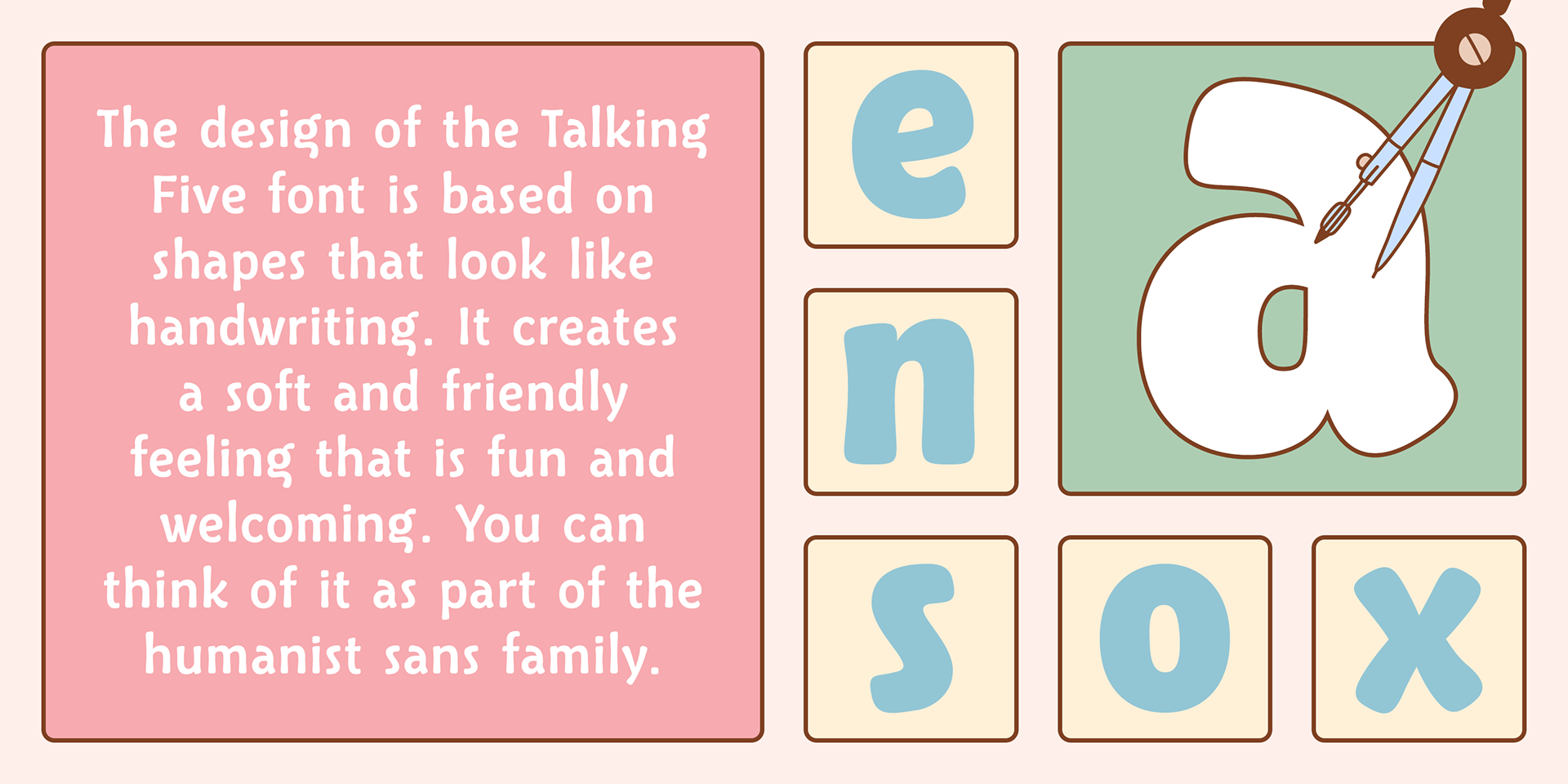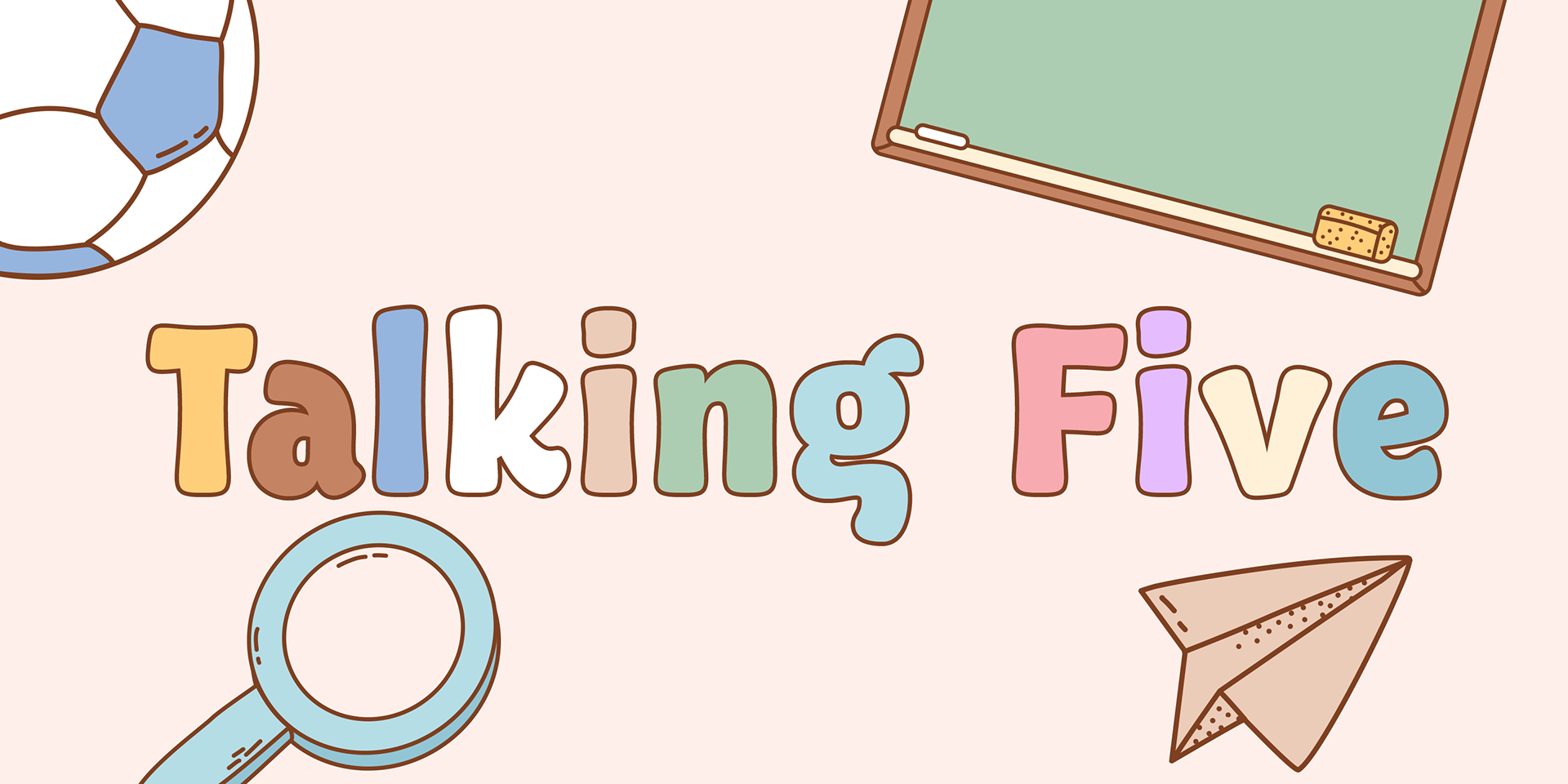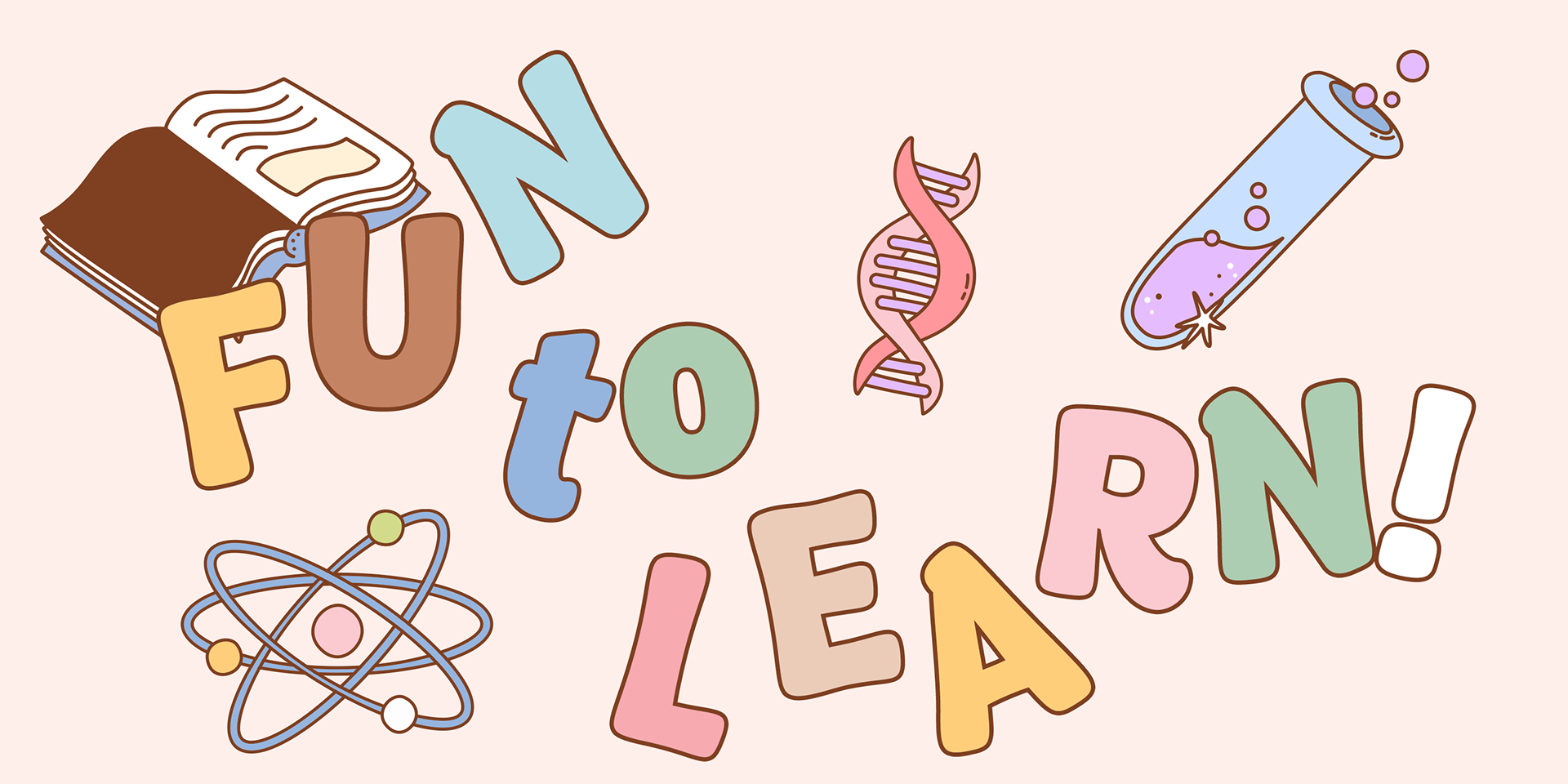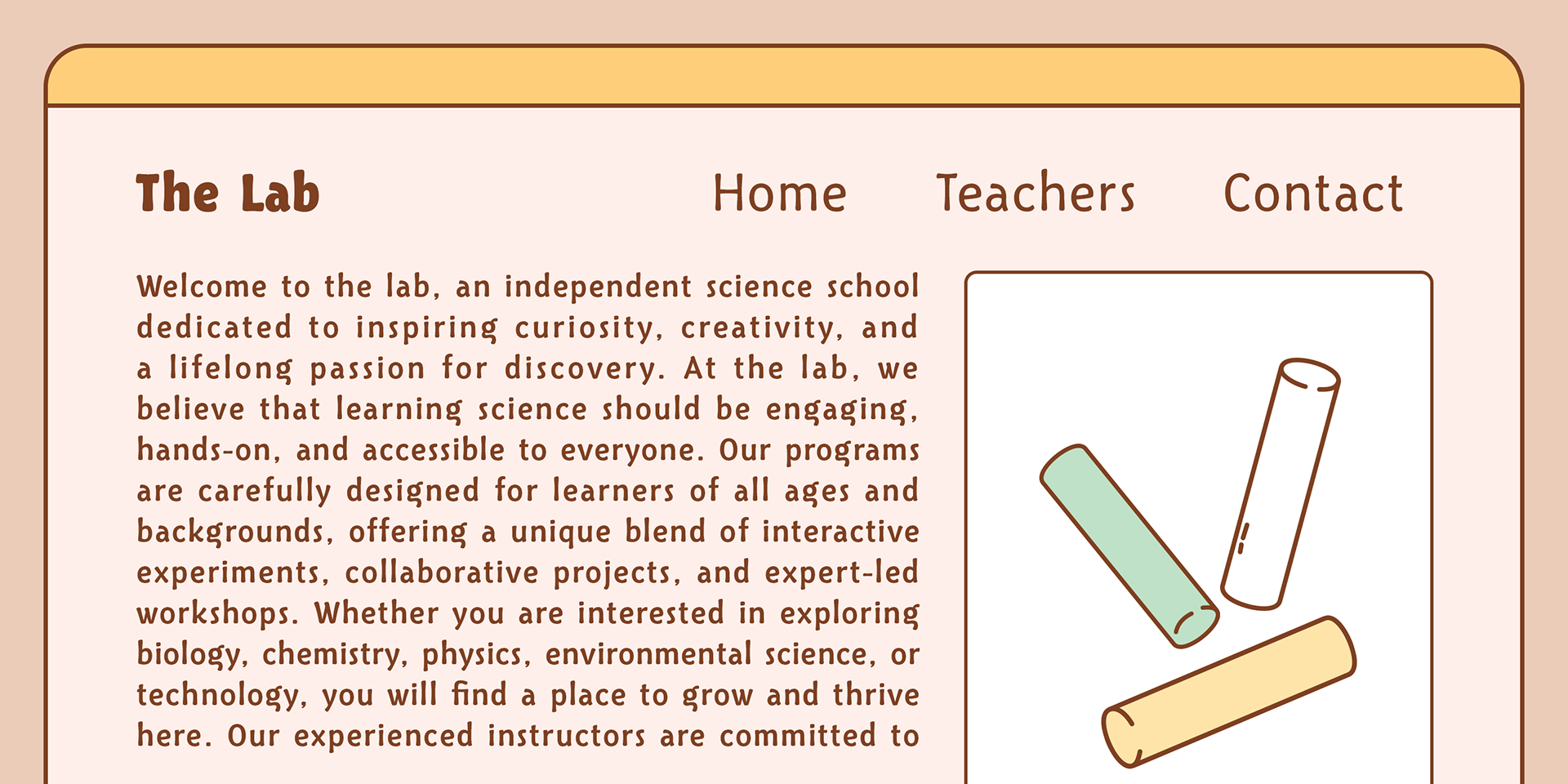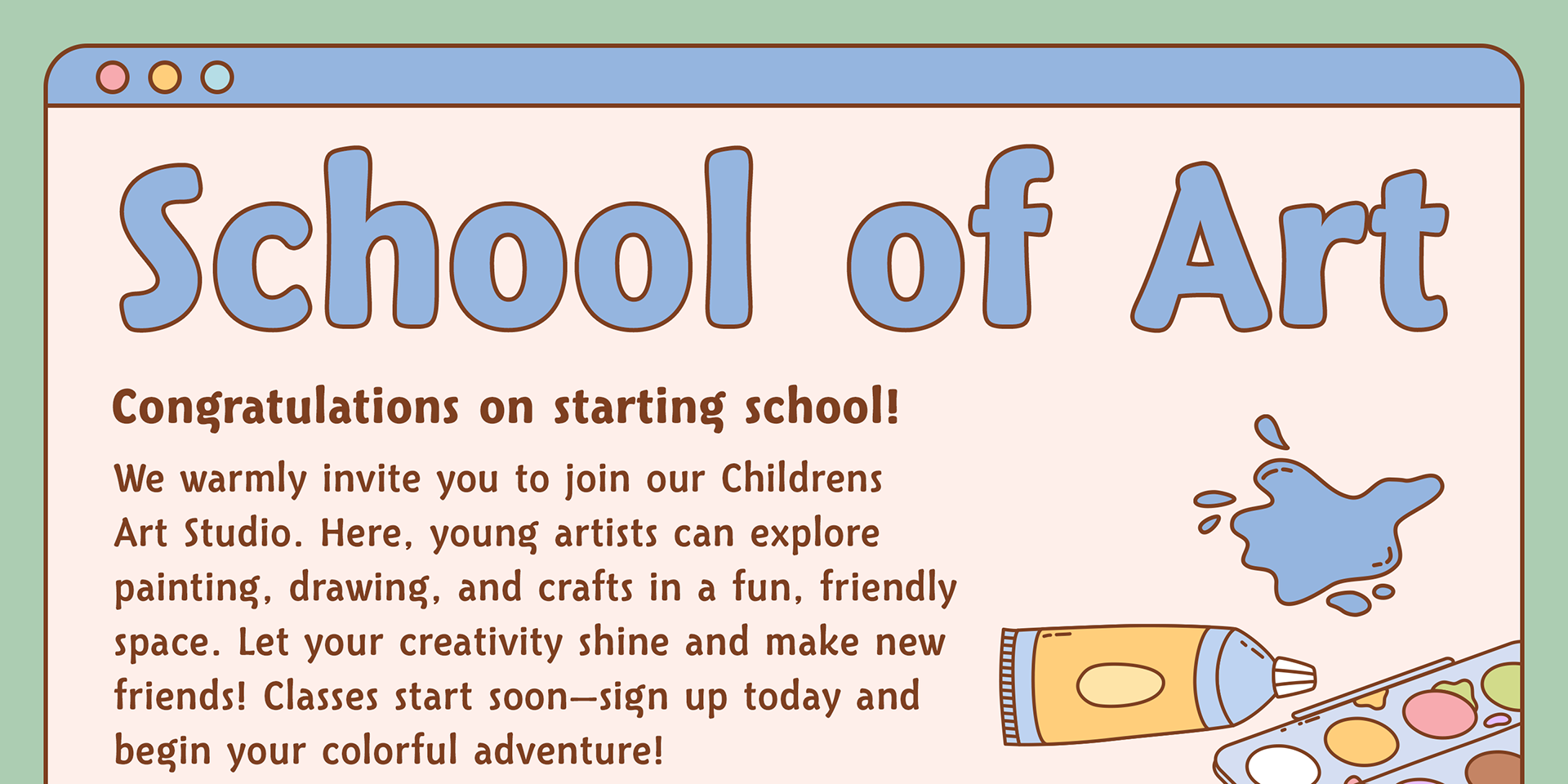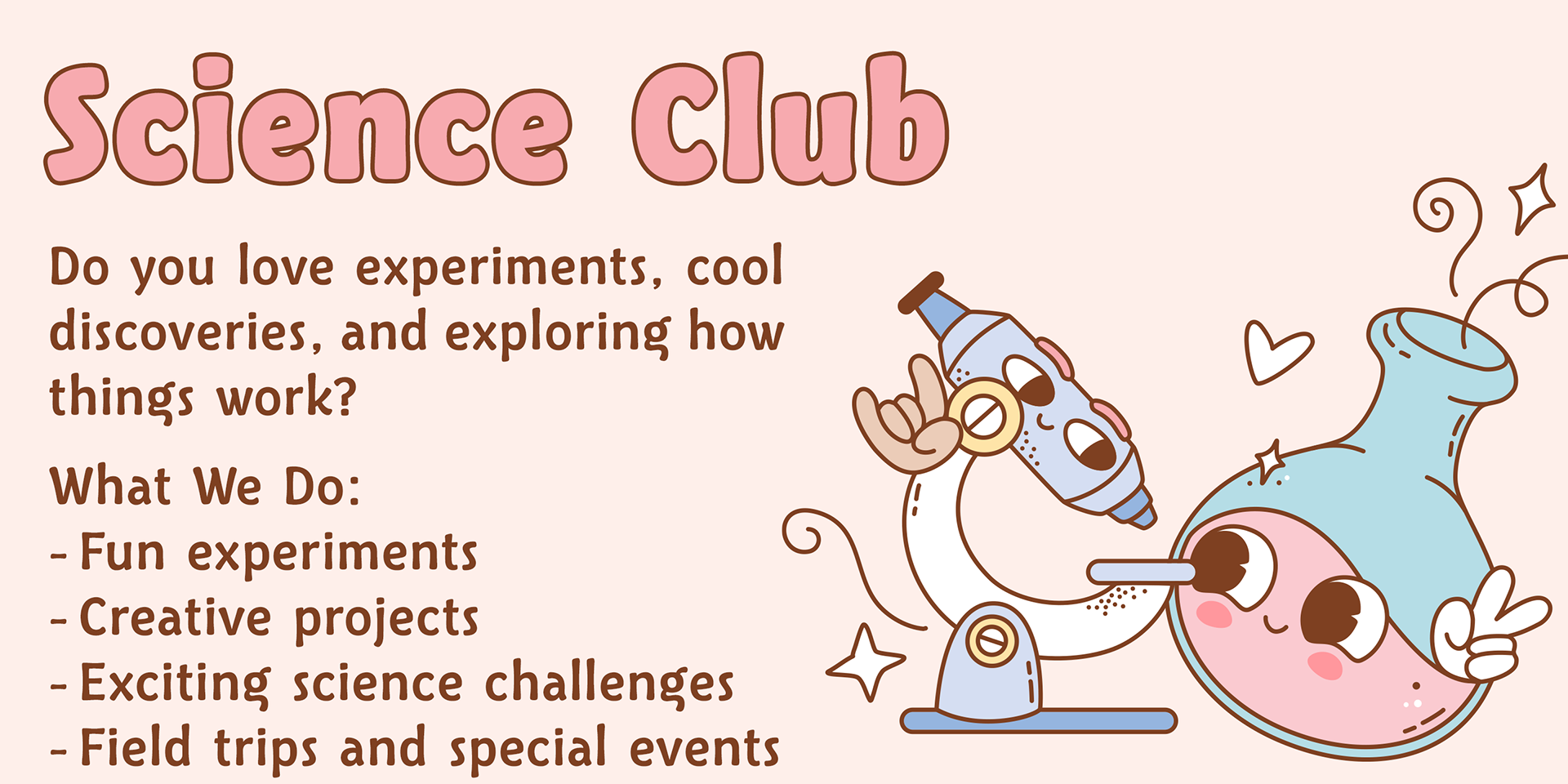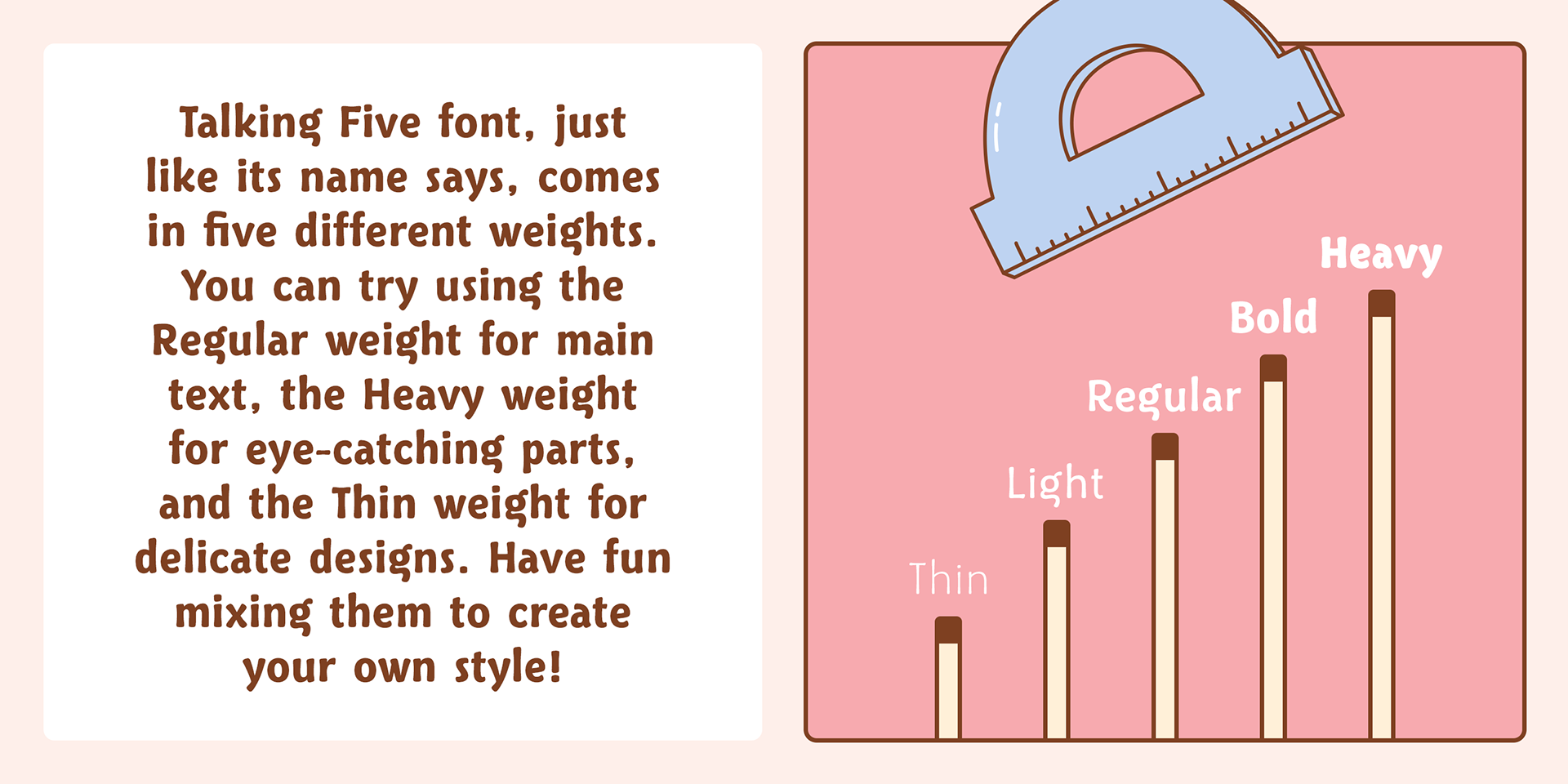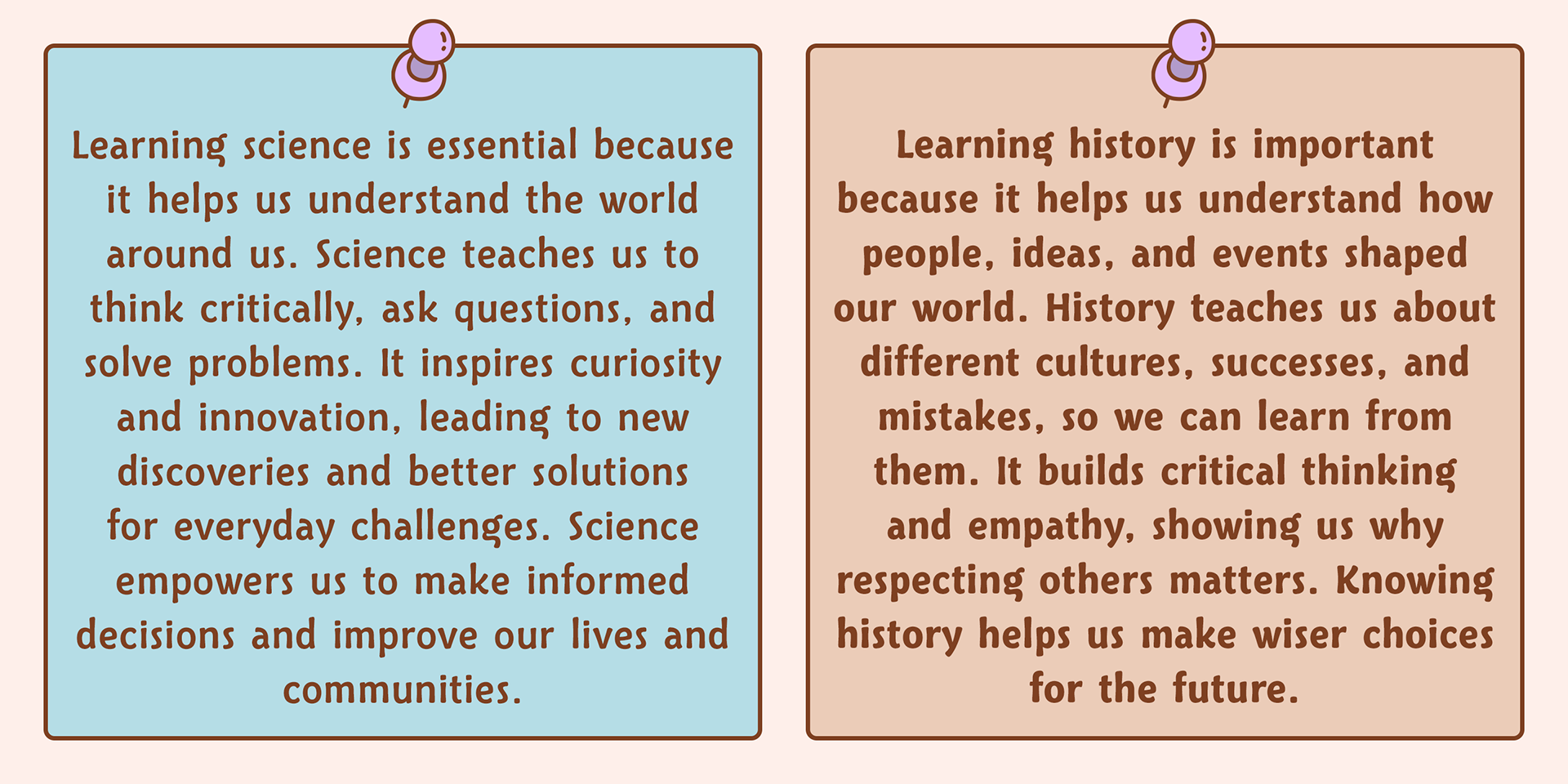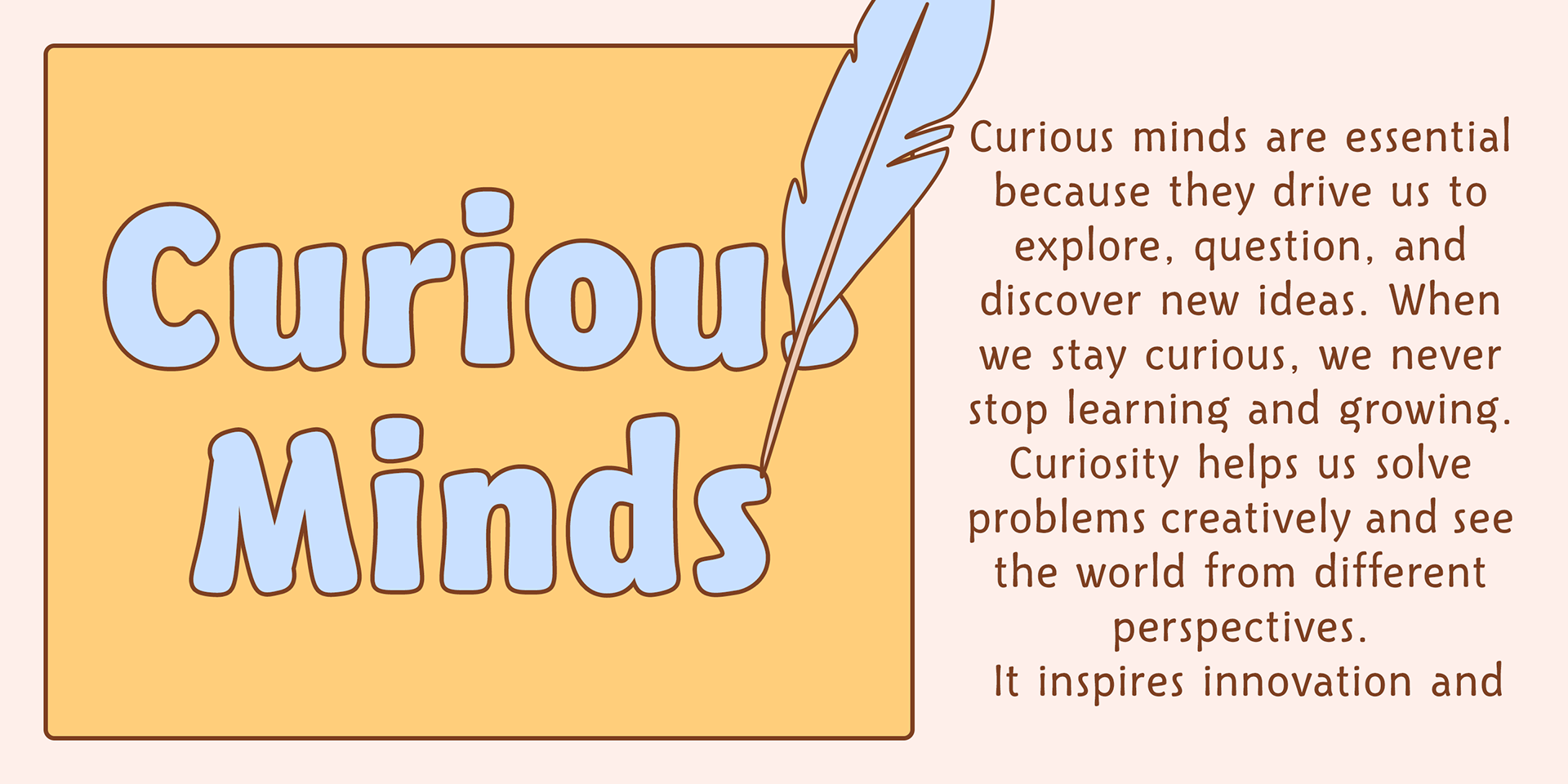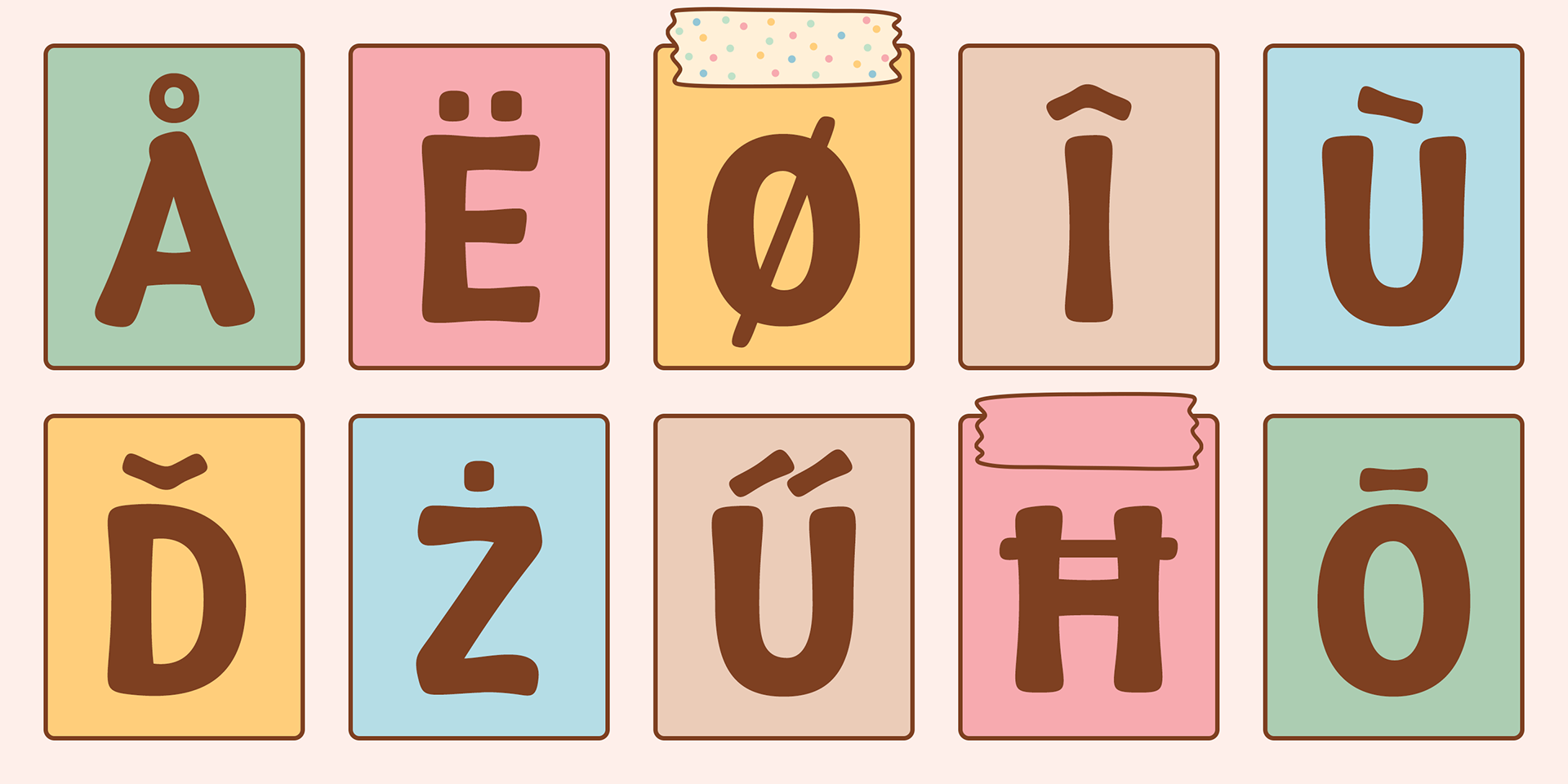
Talking Five
Talking Five is a hand-drawn sans serif font family that conveys a friendly and soft impression.
Perfect for school activities, children’s textbooks, posters, and toy packaging, it brings a warm and approachable feel to any design.